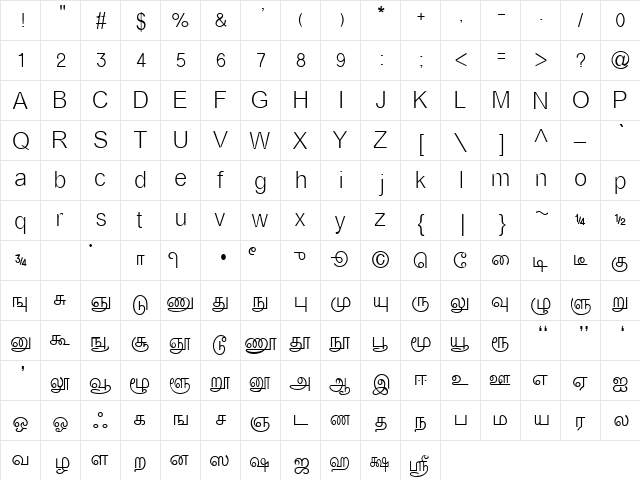
TAB-LFS-Kamban Normal
Design Context for TAB-LFS-Kamban Typeface
TAB-LFS-Kamban offers clean, dependable letterforms without strong stylistic allegiance, making it a practical choice for designers who need flexibility.
Pro Tip: Use TAB-LFS-Kamban in both headline and body roles to test its range before committing to a single application.